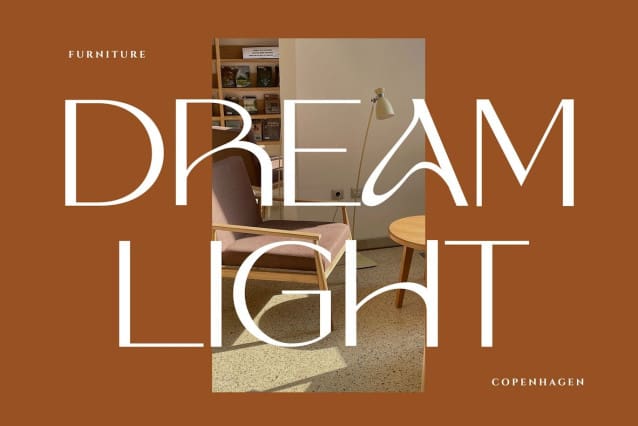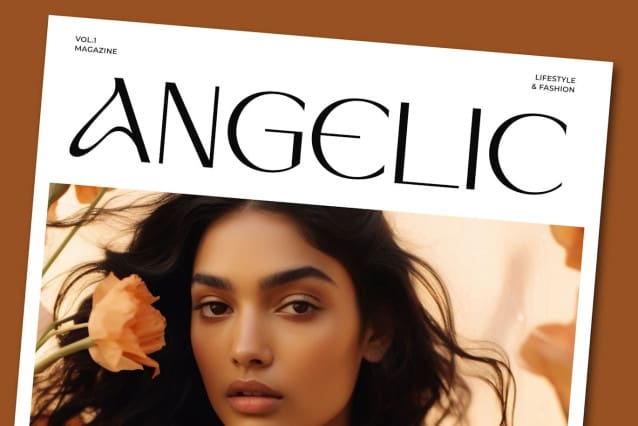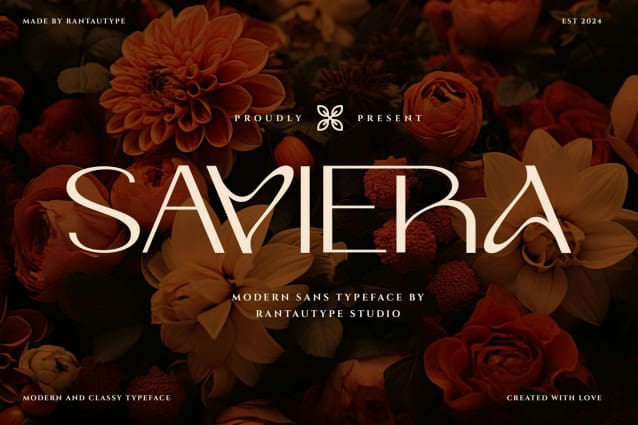
Saviera Font
Saviera Font is a modern and elegant typeface inspired by fashion brands and minimalist style. Saviera comes to help you make a visual design project stand out.
Saviera is a perfect choice for any creative, chic and lifestyle design activity, such as logos, advertisements, watermarks on photographs, stationery, branding projects, displays and magazines, invitations, corporate branding, product design, labels, commercial projects and many other projects with a touch of elegance.